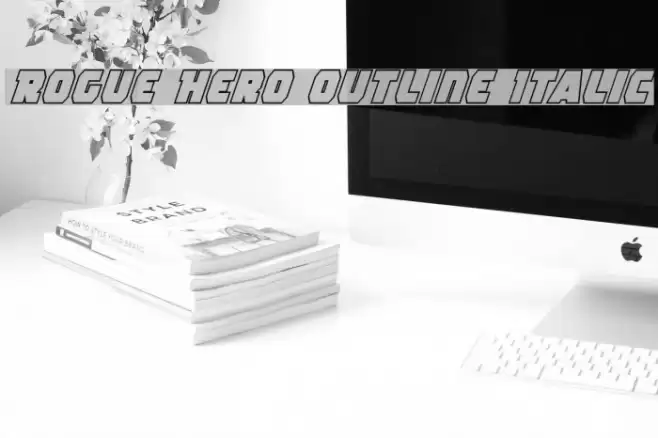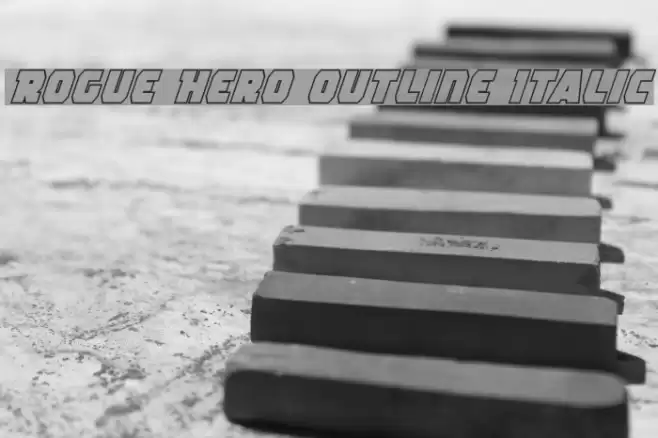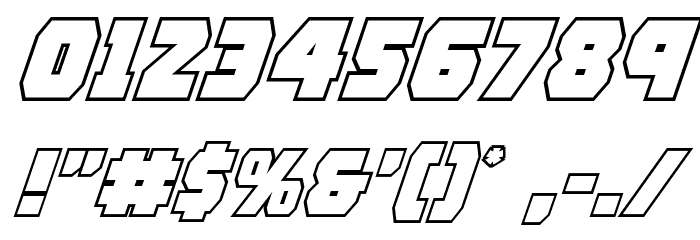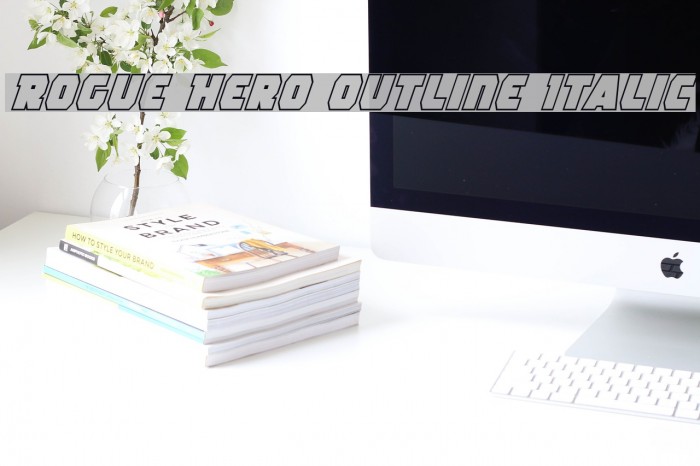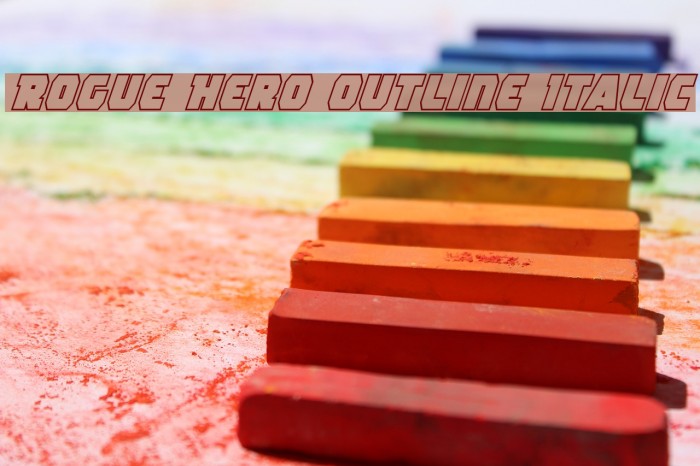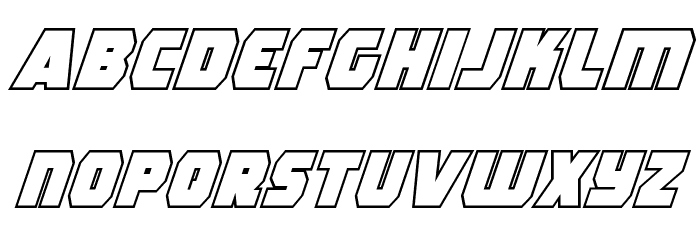
Rogue Hero Outline Italic
This font features a bold, outlined style with a distinct italic slant, giving it a dynamic and energetic appearance. The characters are designed with sharp angles and clean lines, creating a modern and futuristic look. The uppercase and lowercase letters maintain a consistent style, while the numbers and special characters complement the overall design. The outline effect adds depth and dimension, making it suitable for eye-catching headlines or titles. Its geometric structure and italicized form convey a sense of motion and speed, ideal for projects that require a bold statement.
Bold, outlined, italic font with a modern, dynamic style.
- Proposed Projects: Ideal for sports branding, video game titles, posters, and dynamic advertising campaigns.